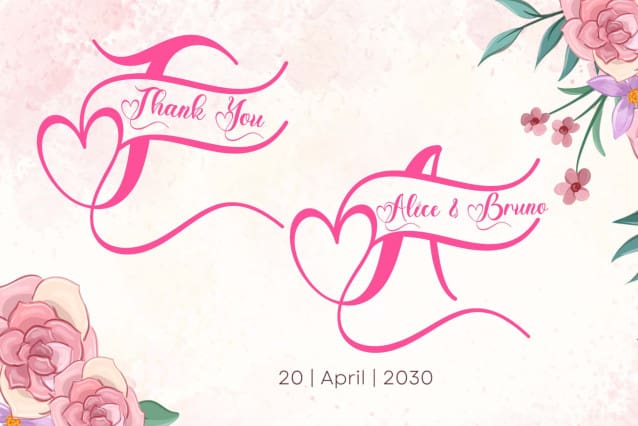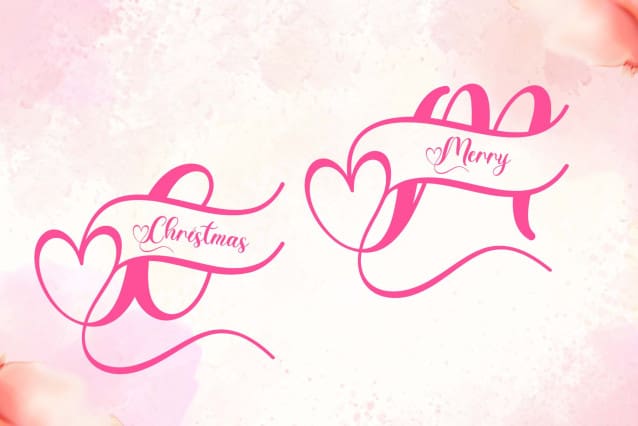
Beautiful Catherine Monogram Font
Beautiful Catherine Monogram Font is a beautiful handwritten monogram font. It comes with monograms, lowercase, uppercase, numbers, punctuation, and multilingual support. It is perfect for weddings, Christmas, parties, invitations, Valentine’s Day, banners, branding, logos, and more.